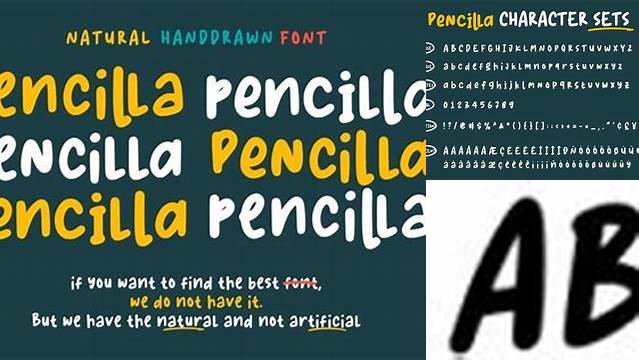
Unveiling Pencilla Regular: What Makes It Special?
Pencilla Regular font is a versatile typeface that seamlessly blends modern aesthetics with a touch of handwritten charm. Its clean lines and balanced proportions make it exceptionally readable, whether you're crafting headlines, body text, or even display graphics. But what truly sets Pencilla Regular apart is its accessibility. It's a font that's both user-friendly and free, making it a fantastic choice for designers of all levels, from seasoned professionals to enthusiastic beginners. The font's design strikes a perfect balance between formality and approachability, making it suitable for a wide range of applications. Imagine using it for creating captivating logos, designing eye-catching website headers, or even crafting beautiful invitations. The possibilities are virtually limitless. Pencilla Regular is not just a font; it's a design tool that empowers you to express your creativity without any financial barriers. It's the kind of font that you can confidently use across various projects, knowing that it will always look polished and professional. The font's adaptability is a significant advantage. Whether you're designing for print or digital media, Pencilla Regular holds its own. It's optimized for clarity, ensuring that your message is conveyed effectively, no matter the medium. This makes it a go-to choice for designers who value both style and functionality. Plus, the fact that it's available for free download means you can experiment with it freely, explore its potential, and truly make it your own. It's like having a secret weapon in your design arsenal, ready to be deployed whenever you need that extra touch of visual appeal.
Creative Uses for Pencilla Regular Font: Let Your Imagination Run Wild!
- Branding and Logos: Pencilla Regular is perfect for crafting clean and memorable logos and brand identities. Its readability ensures that your brand name is easily recognizable, while its inherent elegance adds a touch of sophistication. Use it to create a cohesive visual identity that resonates with your target audience.
- Website Design: Enhance your website's visual appeal and readability using Pencilla Regular for headlines, subheadings, and even body text. Its modern yet friendly aesthetic creates a welcoming user experience, keeping visitors engaged and encouraging them to explore your content.
- Social Media Graphics: Create stunning social media posts with eye-catching text overlays using Pencilla Regular. Whether you're promoting a product, sharing inspirational quotes, or creating engaging announcements, the font adds a professional and visually pleasing touch.
- Print Materials: Design captivating brochures, flyers, and posters with Pencilla Regular. Its clarity and versatility make it ideal for both headlines and body text, ensuring that your message is conveyed effectively. From event announcements to product promotions, the font can transform your printed materials into visually appealing masterpieces.
- Invitations and Greeting Cards: Make your invitations and greeting cards extra special by using Pencilla Regular for a touch of elegance and personalization. Its clean lines and readability make it perfect for conveying important information and adding a unique aesthetic.
Remember, the possibilities are endless. Don't be afraid to experiment with different font sizes, weights, and colors to achieve the desired effect. Pencilla Regular font is designed to be adaptable, so let your creativity run wild, and use it to create something truly unique and memorable. Think about how it can complement the overall tone and message of your project. Does it need to be formal, or more casual? Play around and see what looks best. Try combining it with other fonts to add layers of visual interest. The key is to explore and find the perfect balance that aligns with your vision and design goals. With a bit of practice and exploration, you'll be able to harness the full potential of Pencilla Regular and create designs that truly stand out.
Conclusion: Embrace the Versatility of Pencilla Regular
So, there you have it! Pencilla Regular font is a fantastic addition to any designer's toolkit. With its clean lines, excellent readability, and availability for free download, it's a must-have for anyone looking to elevate their designs without spending a fortune. Whether you're working on a personal project or a commercial venture, Pencilla Regular offers the versatility and style to bring your vision to life. Go ahead, download it, experiment with it, and see how this amazing font can transform your design projects. Get ready to create some awesome stuff! Happy designing!